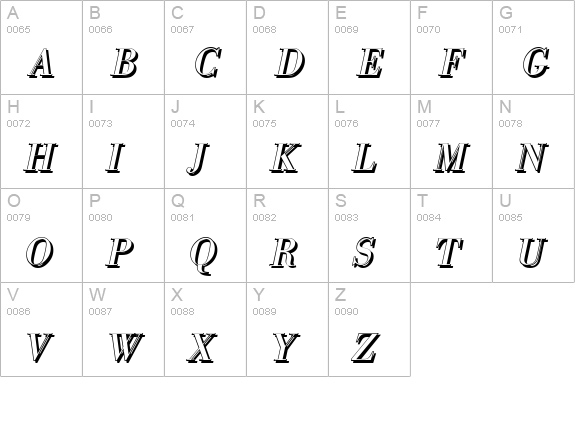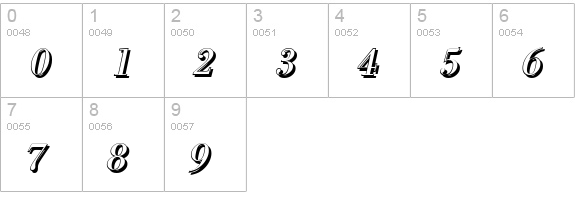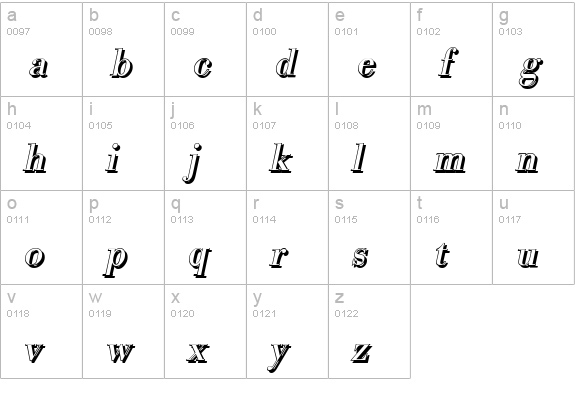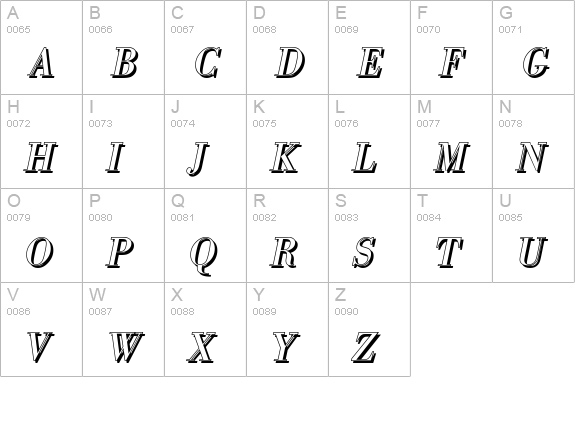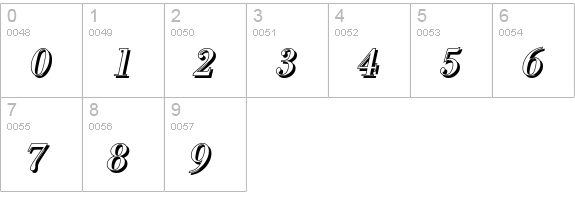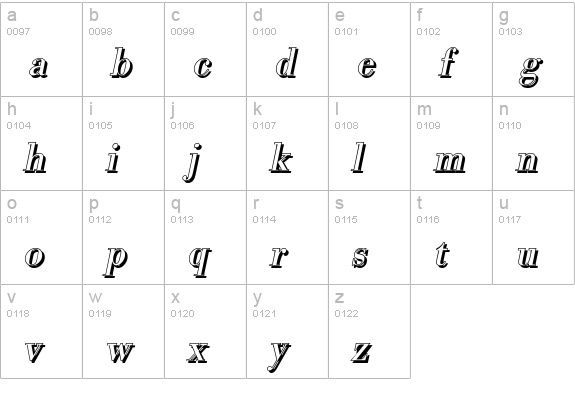
BodoniSh-Italic is a distinctive, italic variant in the BodoniSh typeface family \xE2\x80\x94 well suited to design and typography projects.
BodoniSh-Italic is a timeless and elegant typeface that exudes sophistication and class. The sleek and stylish design of this font makes it perfect for adding a touch of luxury to any project. The italicized version of BodoniSh adds a dynamic and modern flair to the classic Bodoni typeface. With its graceful curves and refined details, BodoniSh-Italic is sure to make a statement in any design. What's even better is that BodoniSh-Italic is available for free download at FontsMarket.com. This means you can easily access this exquisite font and incorporate it into your projects without any cost. Whether you're working on a branding project, invitations, or any other design, BodoniSh-Italic is a versatile and sophisticated choice that will elevate your work to new heights. Download BodoniSh-Italic today and experience the timeless beauty and elegance of this stunning typeface.